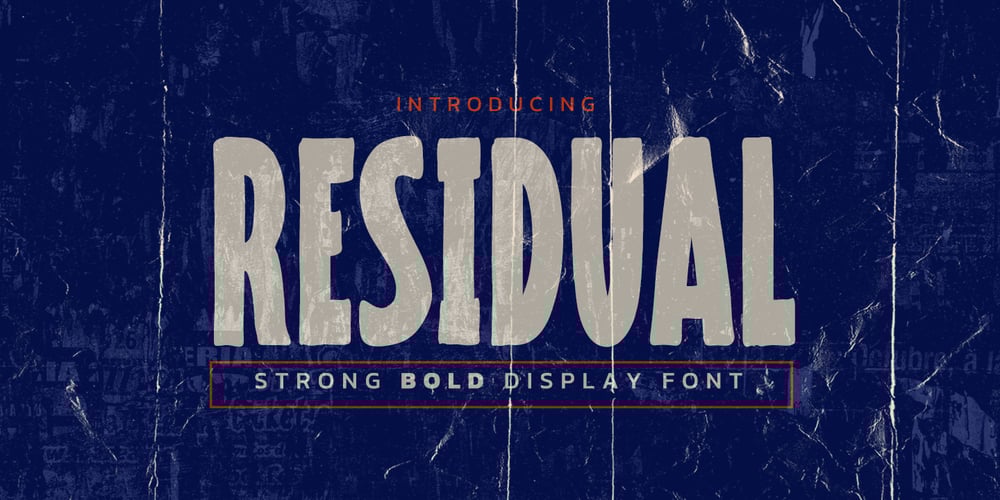
Residual Font Family was designed by Abdul Malik Wisnu, Anang Fibriyanto and published by Gassstype. Residual contains 1 styles and family package options. Introducing our latest display typeface called RESIDUAL is a Strong Bold Display Font, Cool and Strong with can make your logotype become more interesting. Best Vintage font and multilingual support. inspired by the decorative arts and architecture movement.RESIDUAL fonts is perfect for your project and allows you to create designs, headlines, posters, logos, badges and many more that are beautiful. It is also best used for posts, logos, posters, certificates, labels and more.It’s perfect for labels, quotes, DIY projects, branding, packaging, greeting cards, websites, photography overlays, signs,and window art.